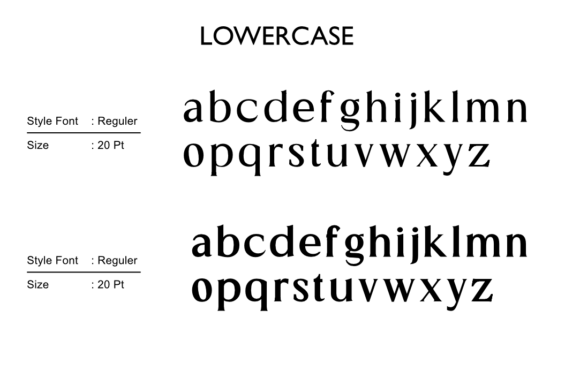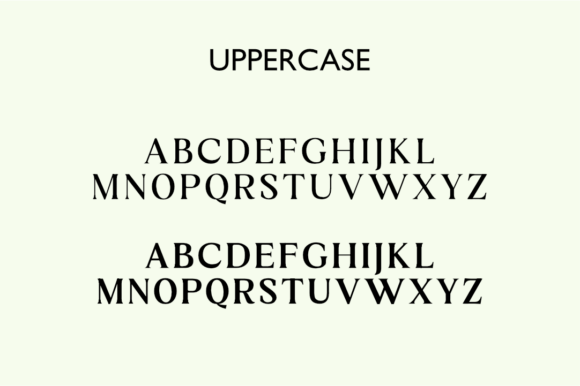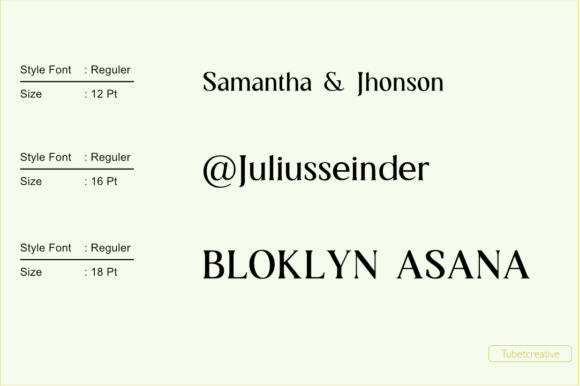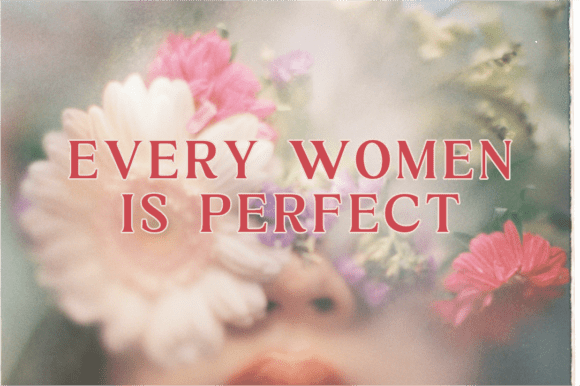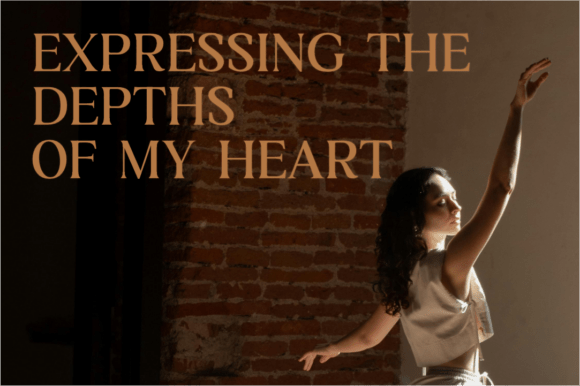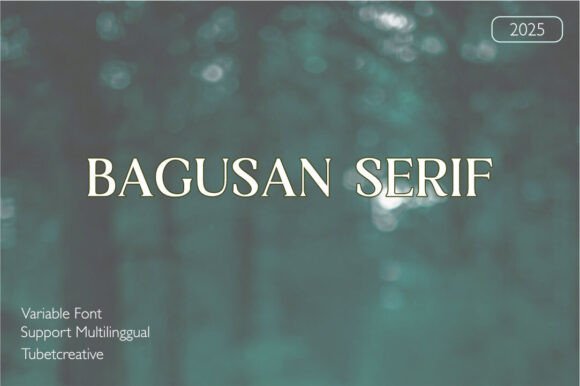
Introducing Bagusan Serif: Adaptive Modern Serif for Impressive Poster Designs
In the world of design, typography plays a crucial role in conveying messages, evoking emotions, and creating visual impact. For designers and crafters looking for a font that combines classic elegance with modern simplicity, look no further than Bagusan Serif. This contemporary serif typeface family is specifically designed to deliver a strong visual impact, making it an ideal choice for a variety of design needs, especially posters that require high appeal and readability.
The Essence of Bagusan Serif
Bagusan Serif features clean, proportionate letterforms with subtle serif touches that give an elegant yet minimalist feel. The font’s design is characterized by sharp yet soft angles, and a balance between thick and thin lines, creating an interesting and timeless visual character. This modern style ensures that Bagusan Serif can be easily combined with other design elements without looking outdated.
Key Features of Bagusan Serif
- Clean and Proportionate Letterforms: Each letterform in Bagusan Serif is carefully crafted to ensure clarity and readability, making it perfect for posters, headings, and titles.
- Subtle Serif Touches: The subtle serifs add a touch of elegance and sophistication, setting Bagusan Serif apart from other modern sans-serif fonts.
- Balanced Visual Character: The balance between thick and thin lines, along with sharp yet soft angles, creates a visually appealing and timeless character.
- Modern Style: Bagusan Serif’s modern style ensures that it can be easily paired with other design elements, making it a versatile choice for various design projects.
Why Choose Bagusan Serif for Your Poster Designs?
When it comes to creating impressive poster designs, the choice of font is crucial. Bagusan Serif offers several advantages that make it an ideal choice for designers and crafters:
- High Appeal: The elegant and modern design of Bagusan Serif makes it perfect for creating posters that grab attention and leave a lasting impression.
- Readability: The clean and proportionate letterforms ensure that your message is conveyed clearly and effectively, even at a distance.
- Versatility: Bagusan Serif can be used for a wide range of design projects, from posters and flyers to headings and titles.
Tips for Using Bagusan Serif in Your Designs
To get the most out of Bagusan Serif, consider the following tips:
- Pair with Other Fonts: Experiment with pairing Bagusan Serif with other fonts to create a unique and visually appealing design.
- Play with Sizes: Use different font sizes to create visual hierarchy and emphasize important information.
- Experiment with Colors: Try out different color schemes to find the perfect combination that complements your design.
Bagusan Serif is a versatile and elegant font that is perfect for designers and crafters looking to create impressive poster designs. With its clean and proportionate letterforms, subtle serif touches, and balanced visual character, Bagusan Serif is sure to make your designs stand out. Whether you’re creating posters, flyers, or headings, Bagusan Serif is an excellent choice for any design project that requires a modern and elegant touch.